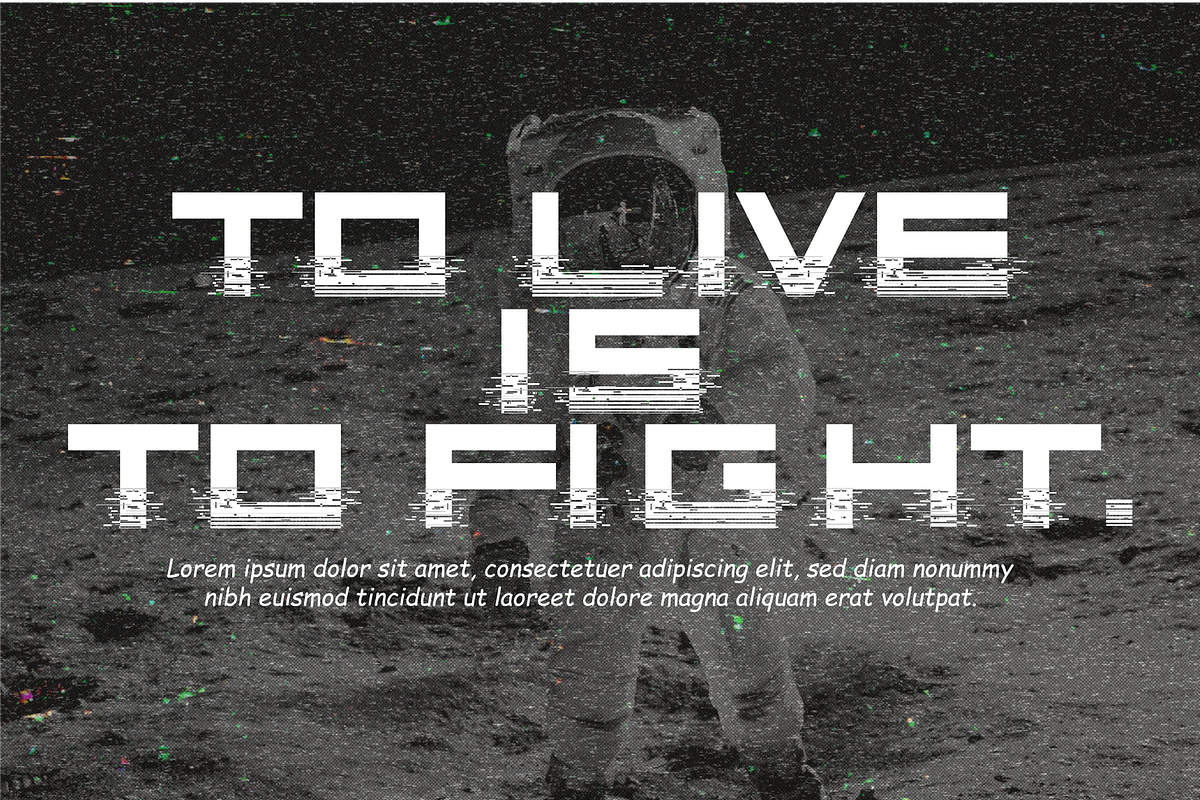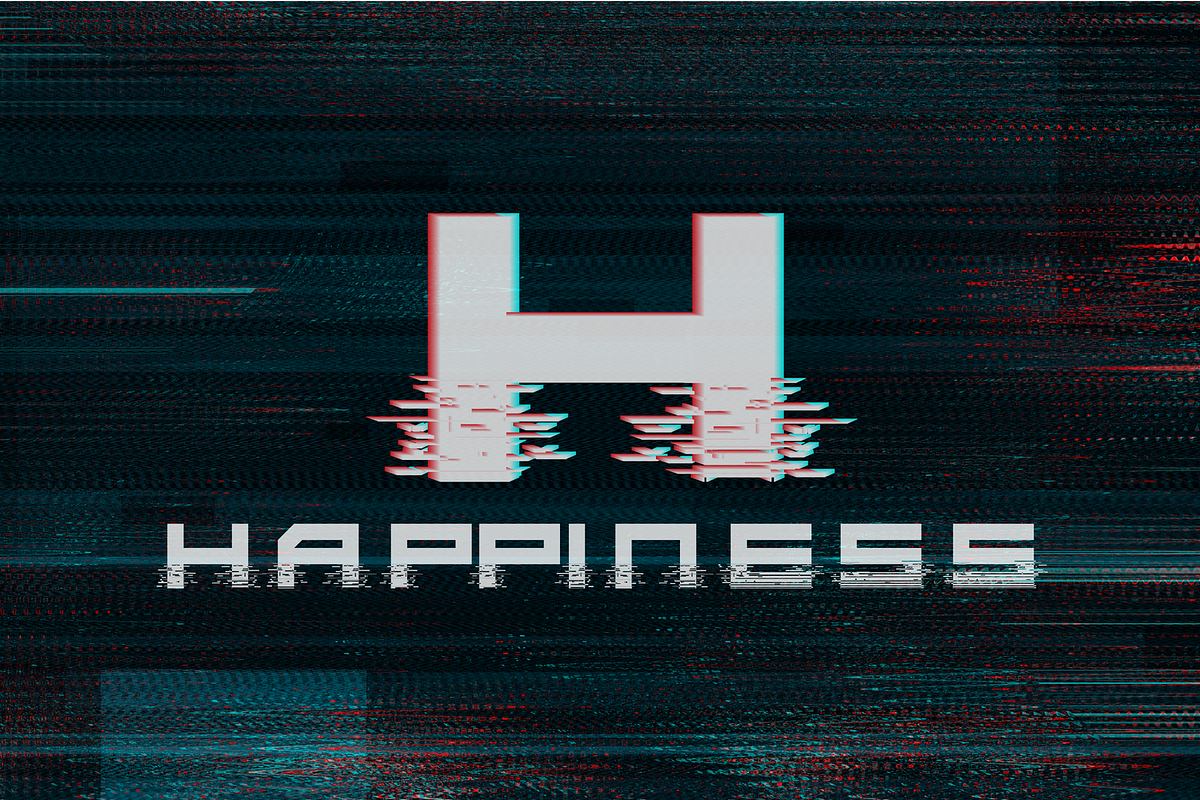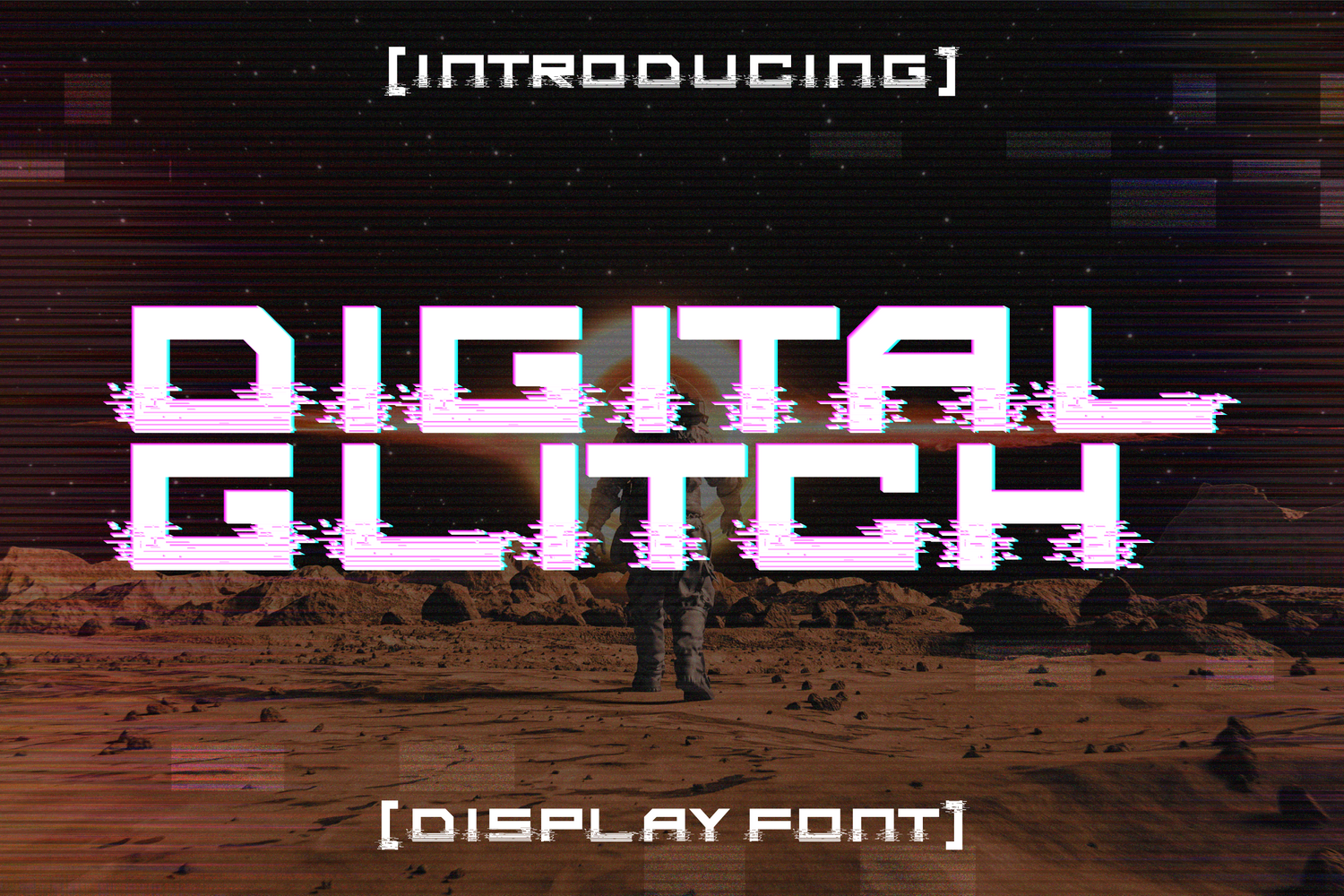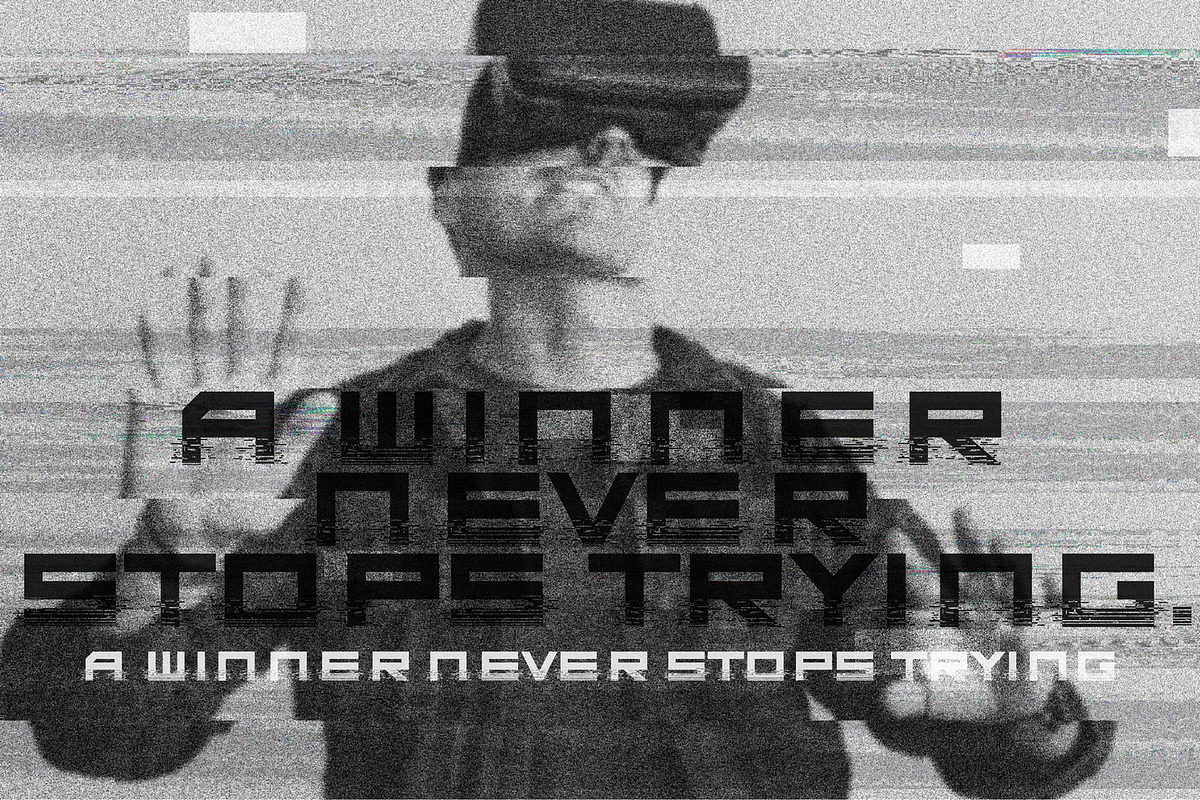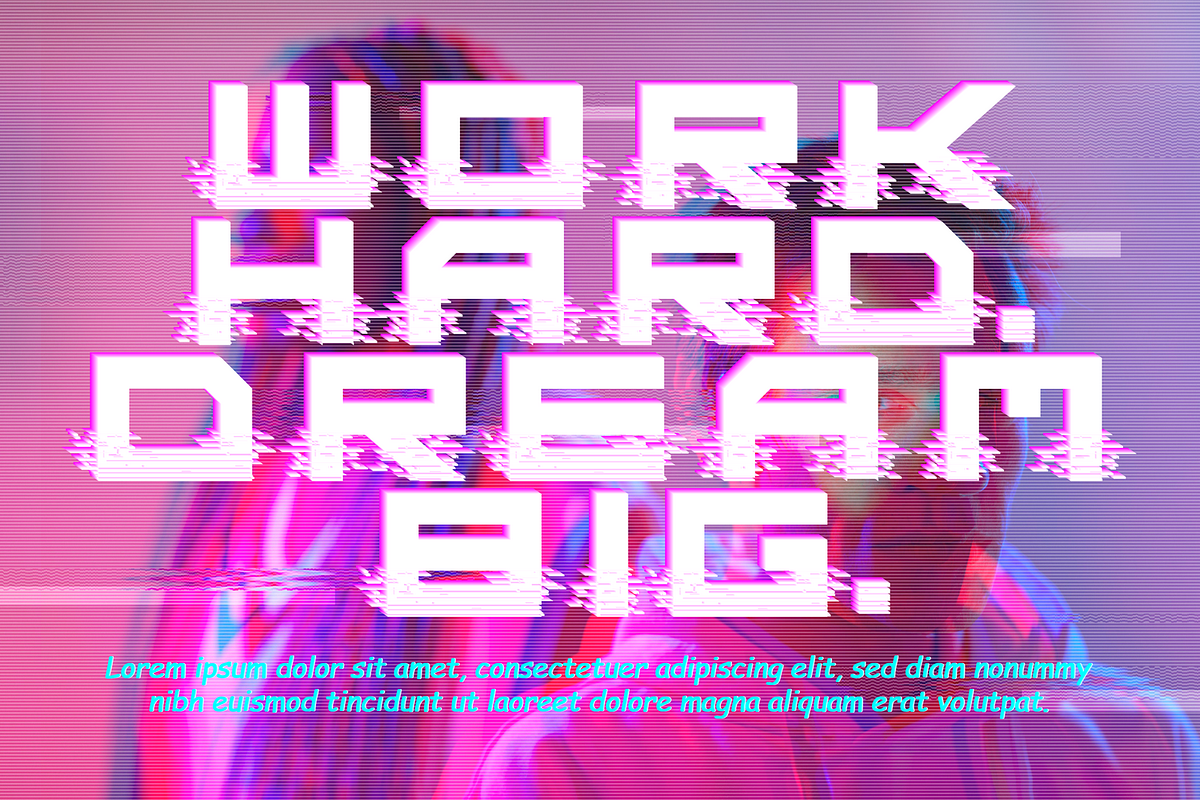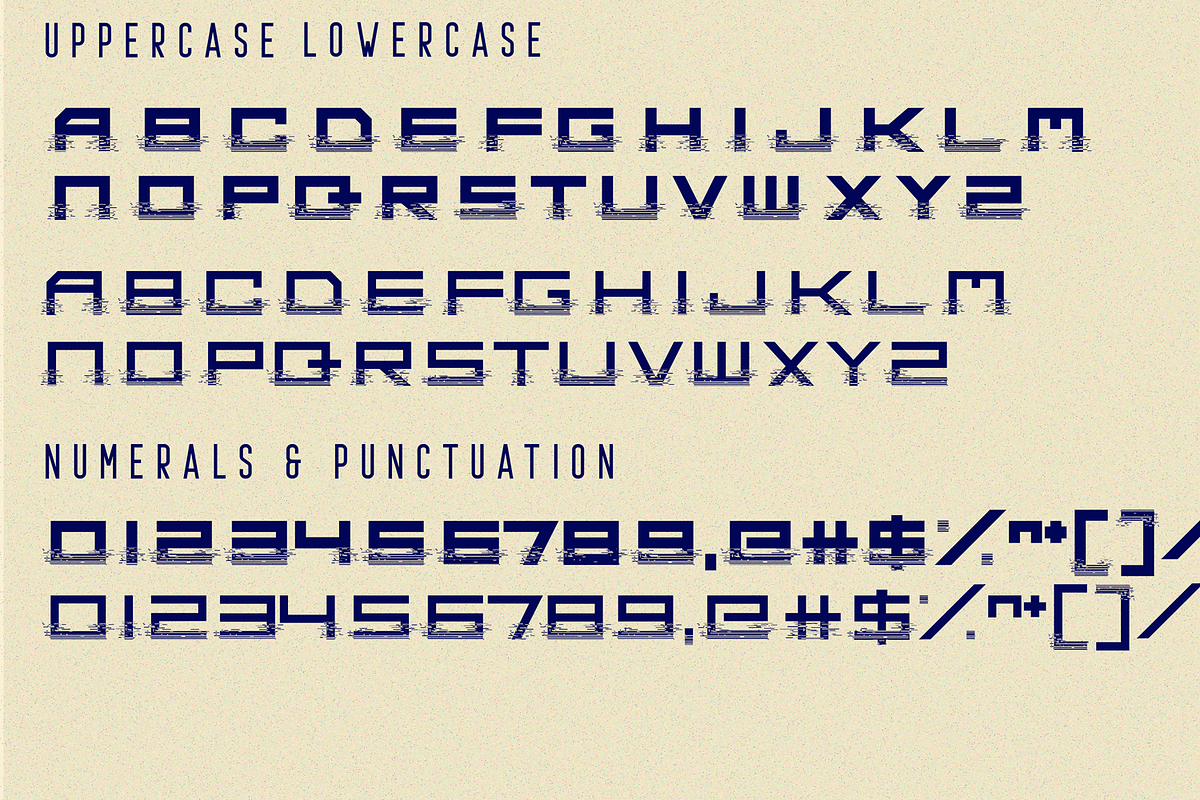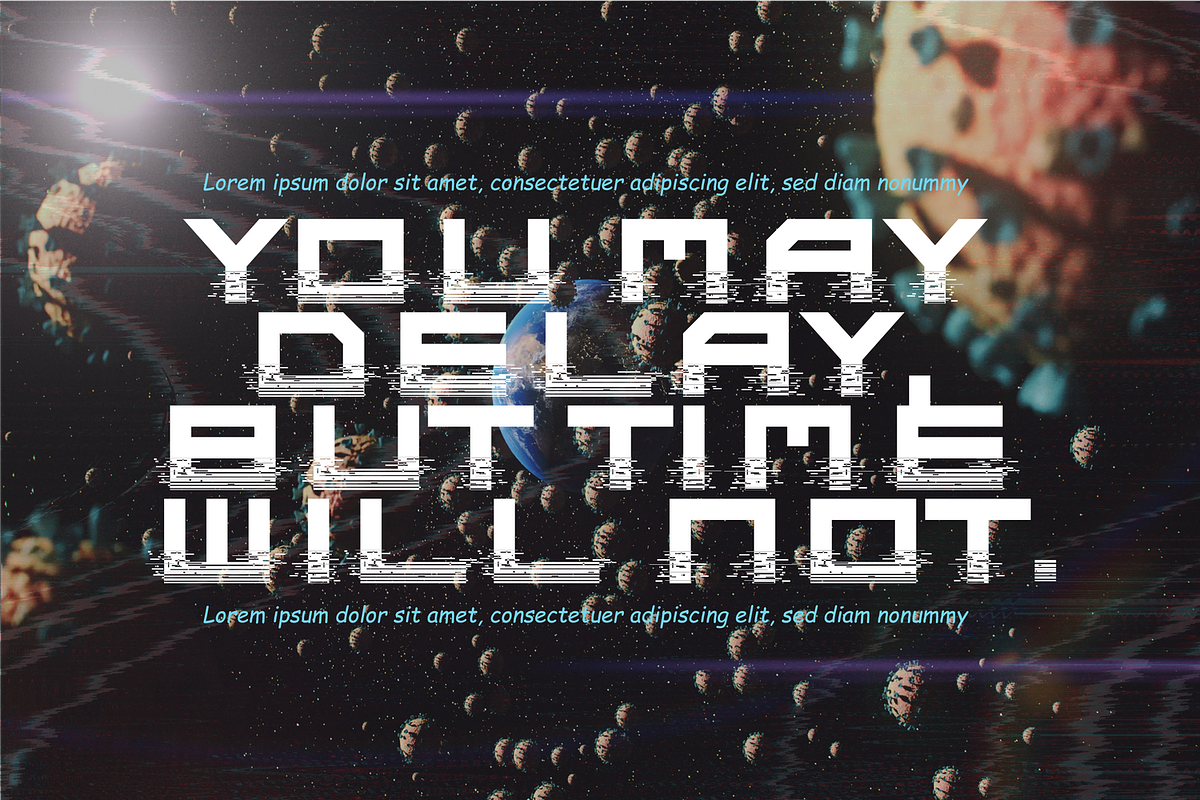
Digital Glitch Font
Digital Glitch Font is a premium distorted glitch font ideal for gaming, music and movie posters or other graphics. It features all uppercase letters, numbers and common symbols. It’s perfect for , poster, logo, magazine, cover, banner, tshirt and headers, or even large-scale artwork.